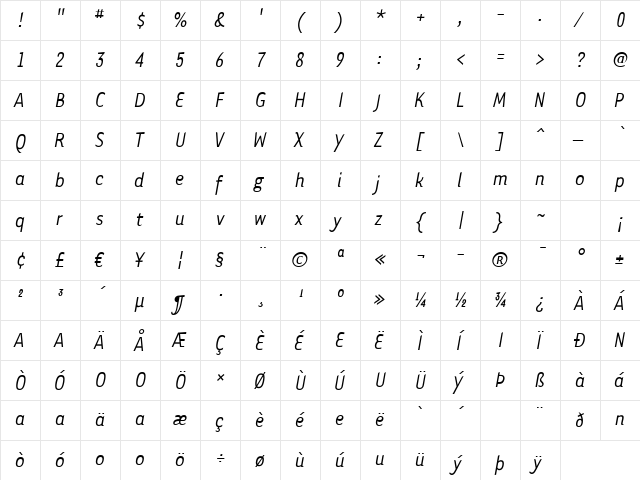
TarzanaNarrowItalic Regular
Design Context for TarzanaNarrowItalic Typeface
TarzanaNarrowItalic takes a measured approach to typography — its balanced proportions and neutral character make it a reliable workhorse for both digital and print work. The dynamic lean of this cut emphasises speed and emphasis in any layout. The condensed width makes it efficient for tight spaces without sacrificing legibility.